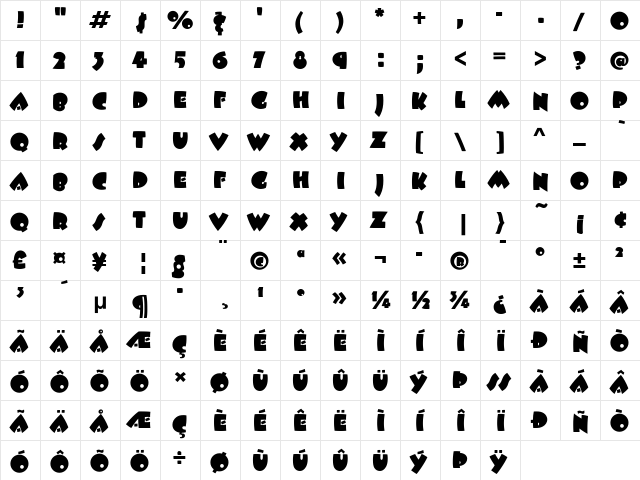
Beesknees Itc D Regular Font Preview
Beesknees Itc D Regular
Design Context for Beesknees Itc D Typeface
Beesknees Itc D is a composed and adaptable typeface that performs quietly and consistently across a wide range of design contexts.